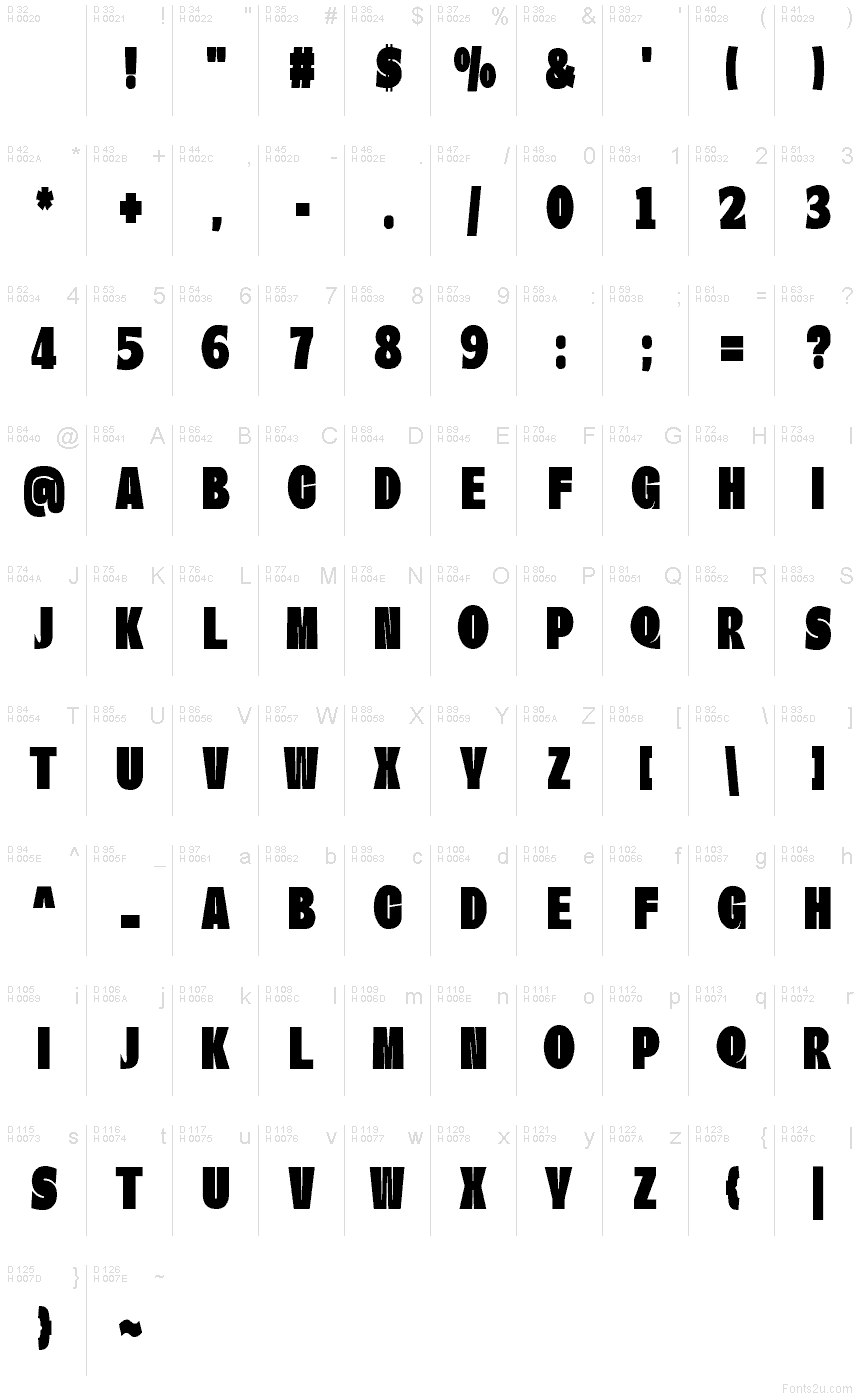
Thrive
Thrive font by Graphicxell is a free condensed sans serif font. Built for tight spaces, its tall, ink-solid letters stack like sleek columns, delivering loud impact without eating horizontal real estate. The rhythm is tight, the edges are crisp, and the weight lands with poster-level authority—great when you need headlines that punch through clutter without shouting in all caps.
Using Thrive, you can drive bold hierarchy on event flyers, product packaging, banners, magazine covers, YouTube thumbnails, and storefront signage. This free font holds together at large sizes and stays legible when space is scarce, so your message reads fast and hits hard. Pair it with a light, neutral grotesk for body copy to balance the density.